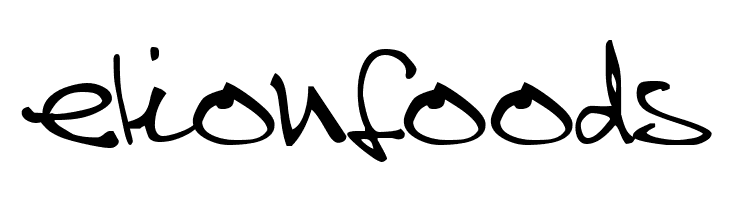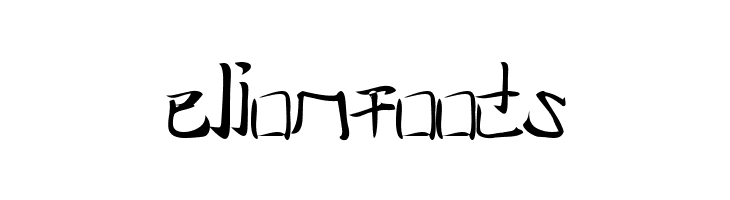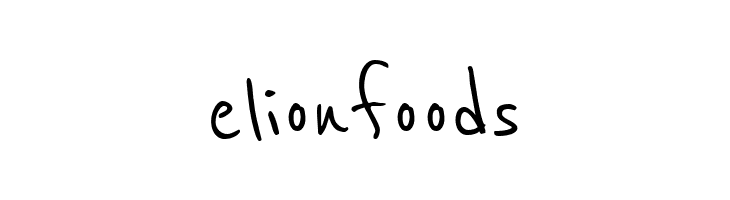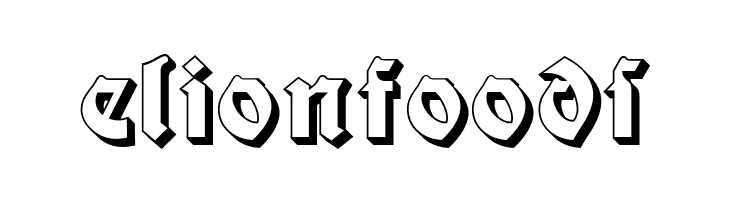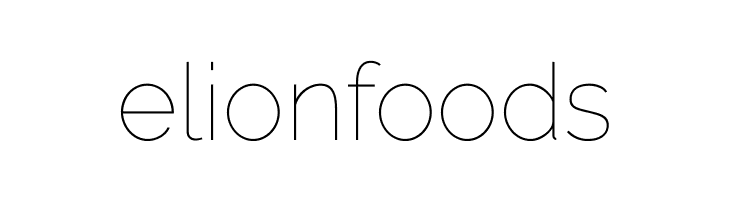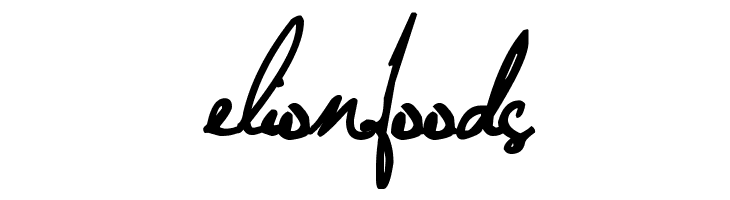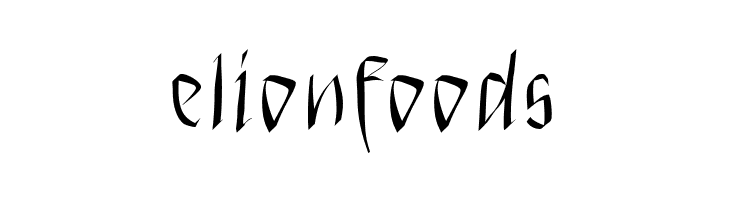
A bold, decorative font with fluid, organic shapes and a whimsical style.
A bold, playful font with organic, fluid shapes and high contrast.
A casual, handwritten font with a natural, fluid style.
A bold, geometric font with art deco influences and angular letterforms.
A bold, 3D Schwabacher-style font with a blackletter influence and shadow effect.
A thin, modern font with clean lines and a geometric influence.
A fluid and elegant handwritten script with expressive strokes.
A dynamic, angular font with a calligraphic influence and high contrast strokes.